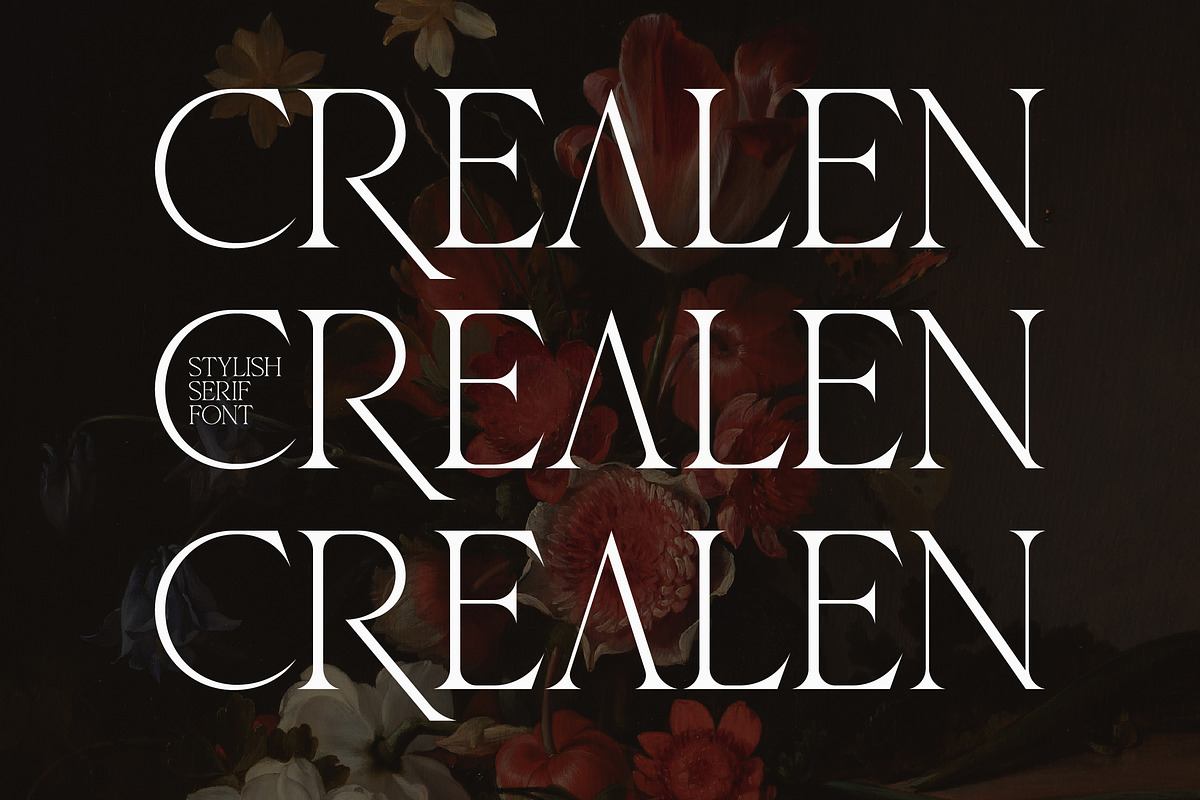
Crealen Stylish Serif Font Free Download
Bring modern elegance to your designs with the Crealen Stylish Serif Font Free Download — a refined and fashion-forward serif typeface that balances minimalism with personality. Featuring high contrast strokes, gentle curves, and sophisticated letterforms, Crealen is ideal for fashion branding, editorial layouts, luxury packaging, social media content, and high-end websites.
This font evokes timeless class while still feeling fresh and contemporary. Whether you're crafting a logo for a boutique label or designing a lookbook spread, Crealen brings subtle drama and stylish flair to every word.